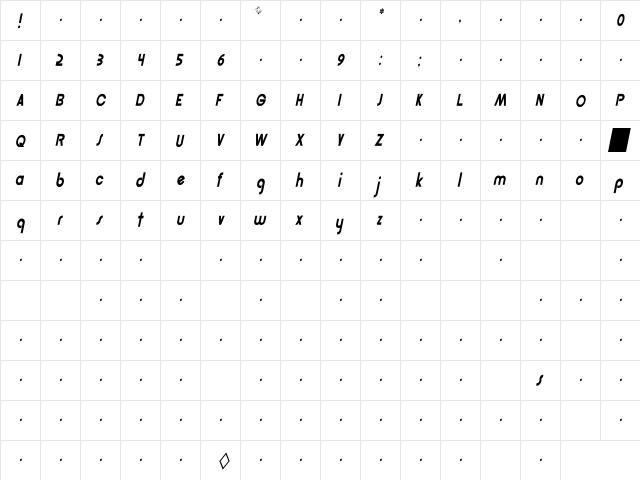
Rsgordon Cn italic Italic
Design Context for Rsgordon Cn italic Typeface
Rsgordon Cn italic takes a measured approach to typography — its balanced proportions and neutral character make it a reliable workhorse for both digital and print work. The dynamic lean of this cut emphasises speed and emphasis in any layout.
Pro Tip: Use Rsgordon Cn italic for emphasis, pull quotes, and subheadings where its slanted energy can add rhythm to the layout.